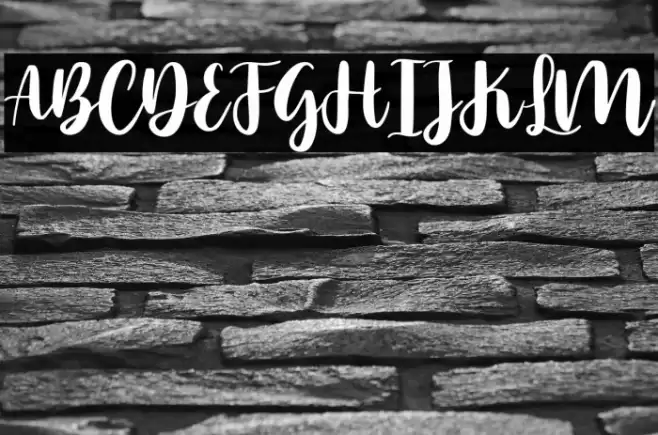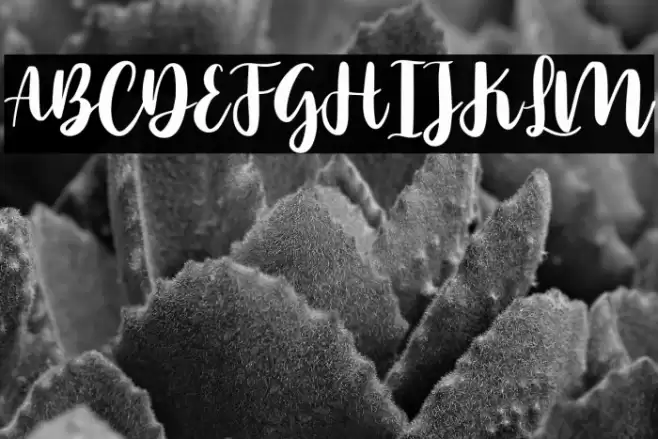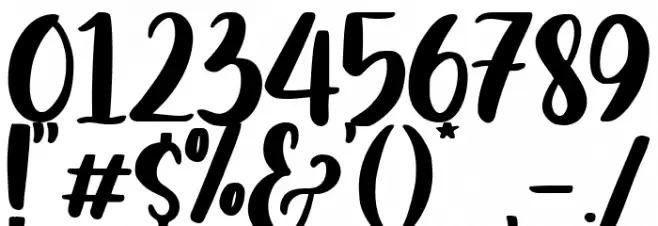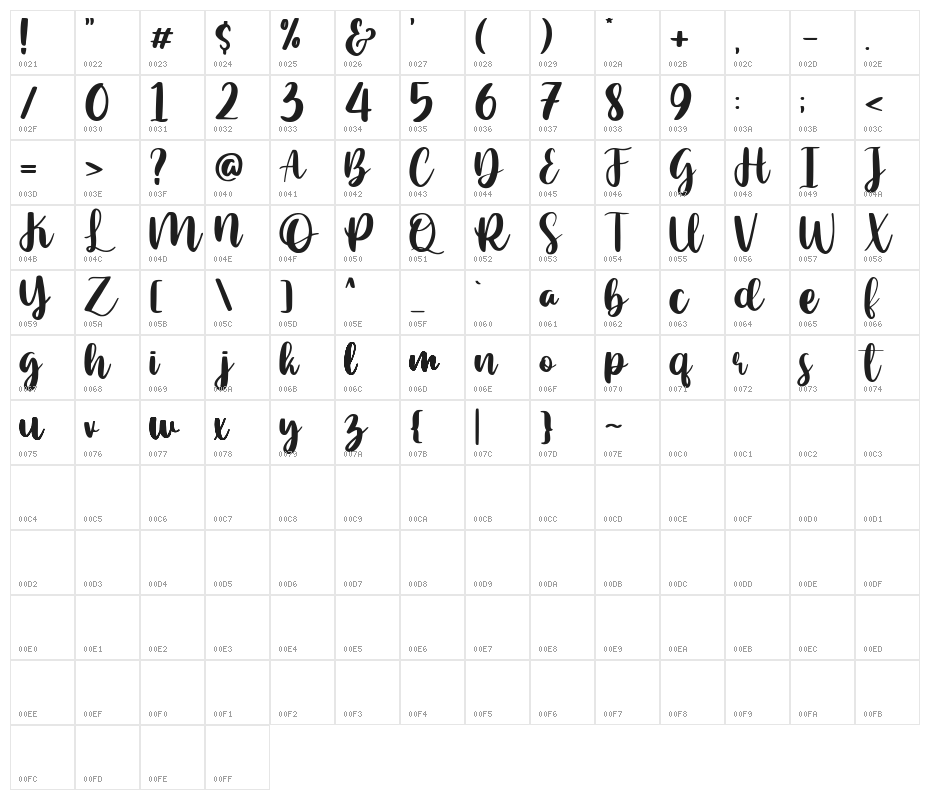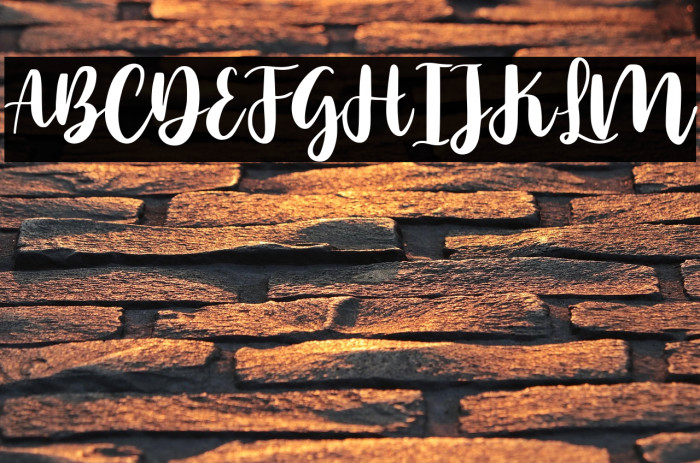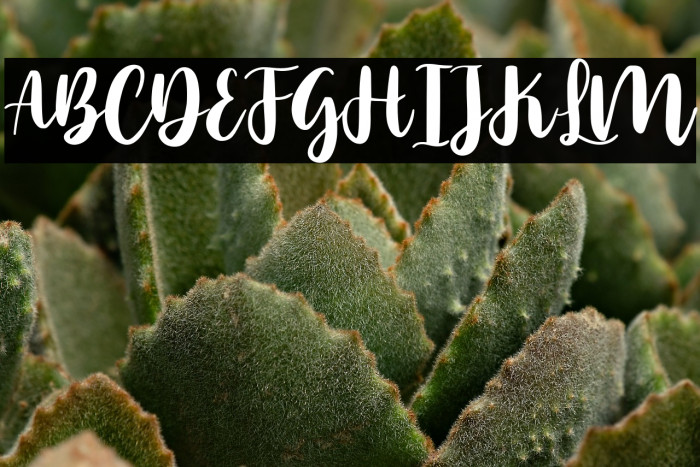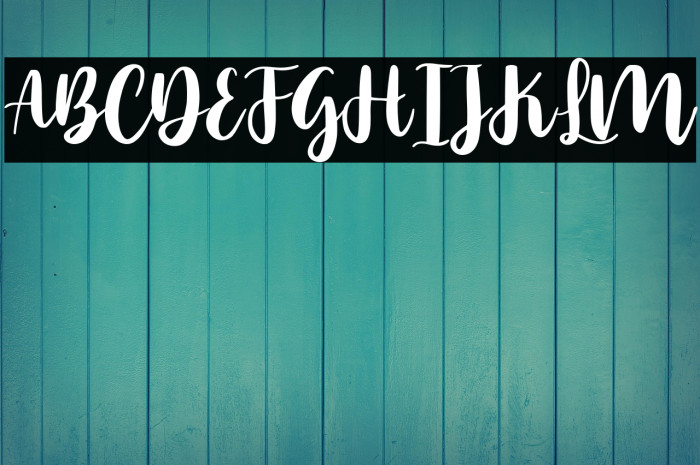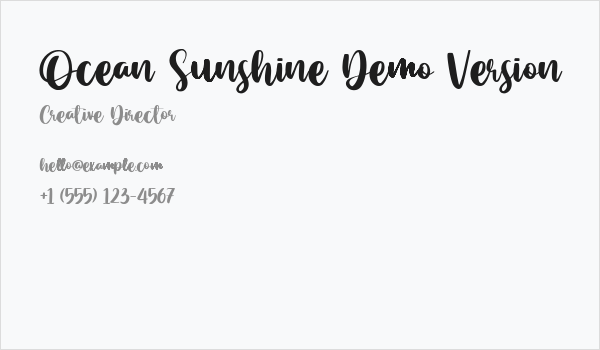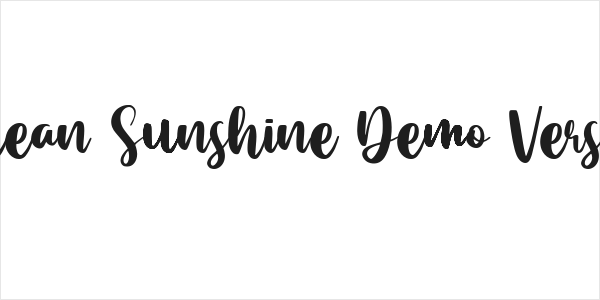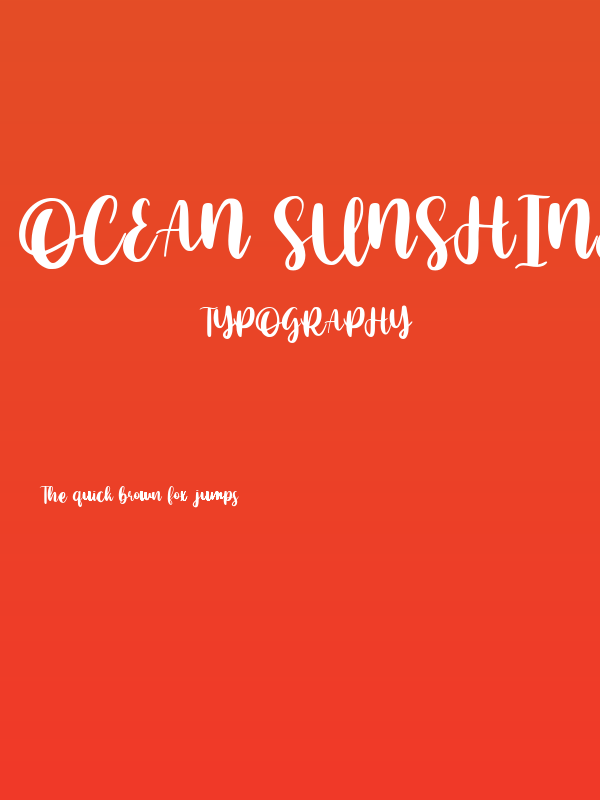
Ocean Sunshine Demo Version Font
Ocean Sunshine Demo Version Description
This font features a playful and energetic script style with a handwritten appearance. The letters are bold and fluid, with a consistent stroke width that gives it a cohesive look. The uppercase letters are slightly larger and more decorative, while the lowercase letters maintain a smooth and flowing form. The numbers and special characters are designed to match the overall style, ensuring a harmonious appearance across all text. This font exudes a sense of fun and creativity, making it ideal for projects that require a personal and lively touch.
A bold, playful script font with a handwritten style from Uncategorized fonts.
- Font: Ocean Sunshine Demo Version
- Proposed Projects: Ideal for greeting cards, invitations, branding, and social media graphics.
- Overall Style: Playful, Creative
- Use Case: Logos, Headlines, Invitations
Ocean Sunshine Demo Version UPPERCASE
Ocean Sunshine Demo Version LOWERCASE
Ocean Sunshine Demo Version OTHER CHARS